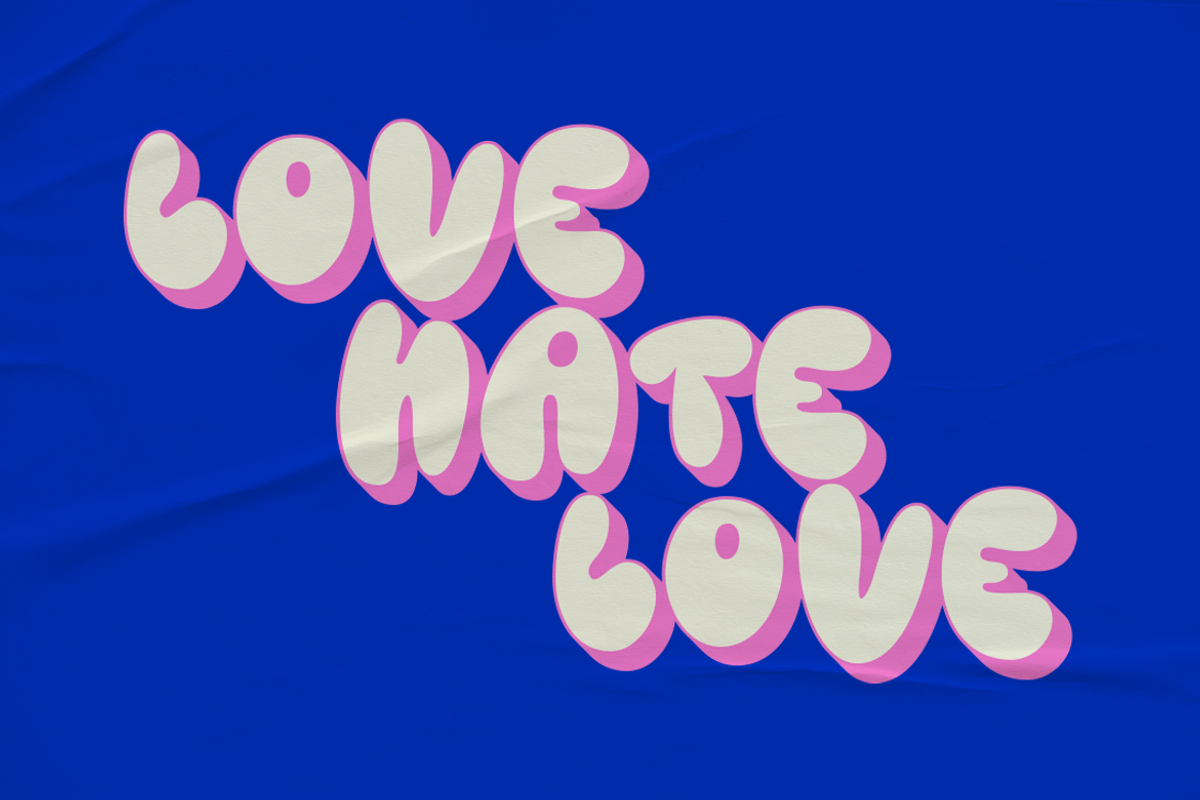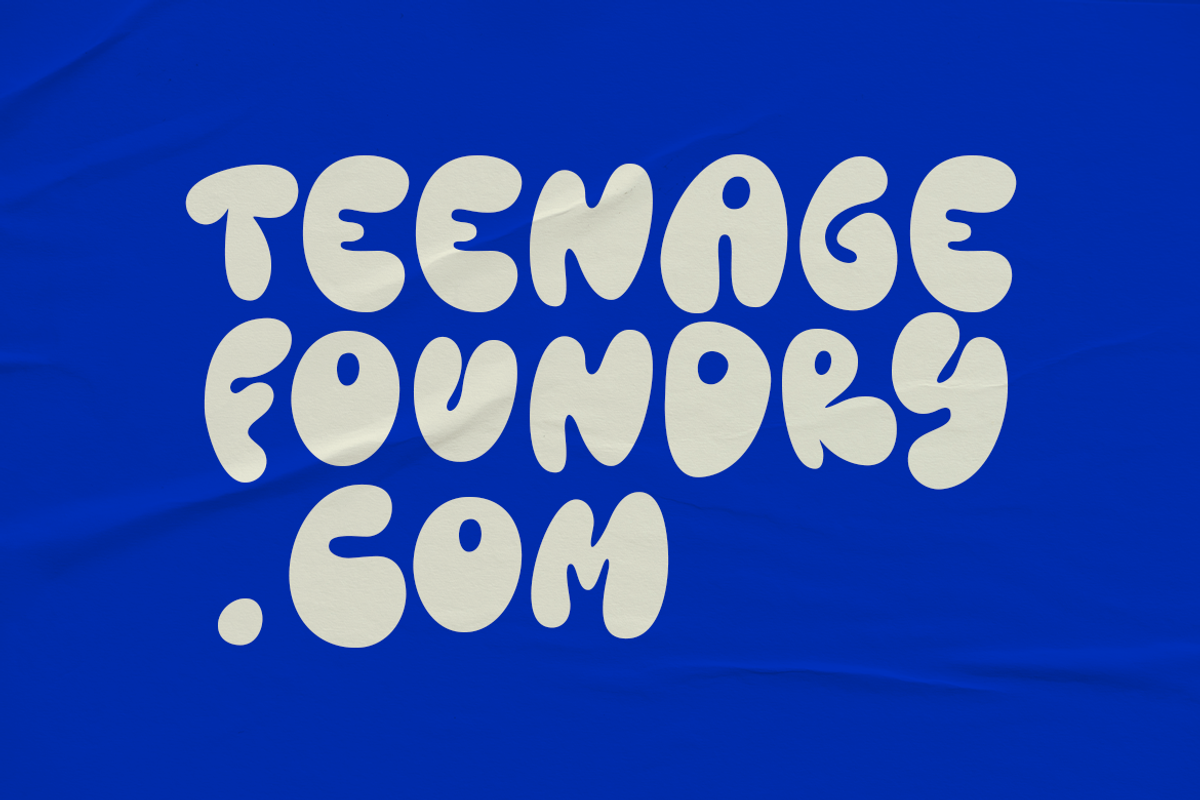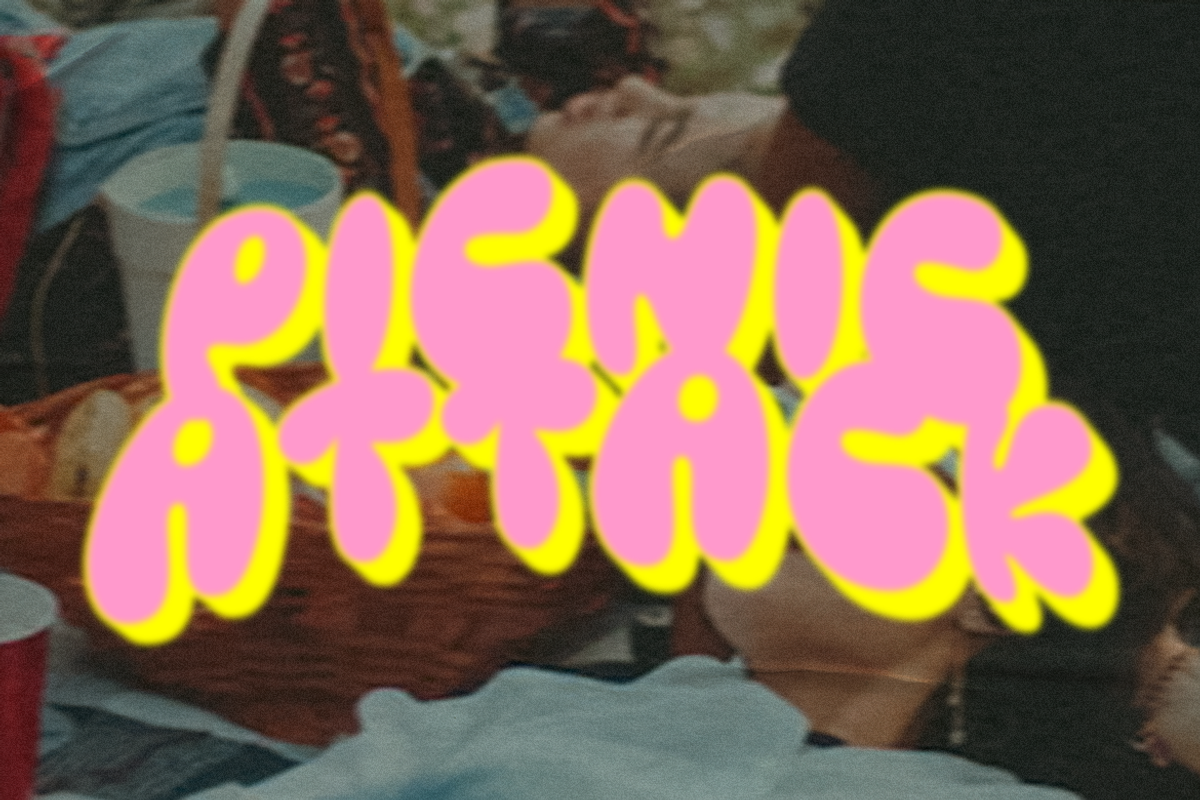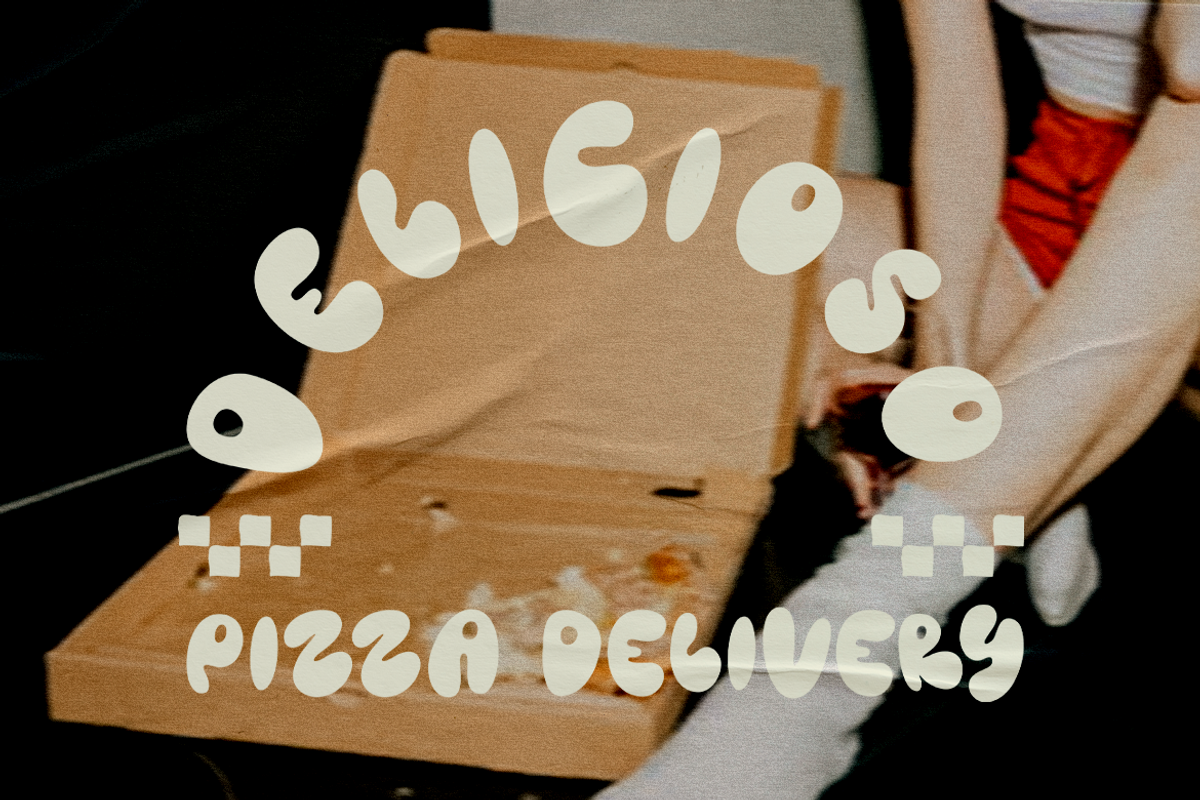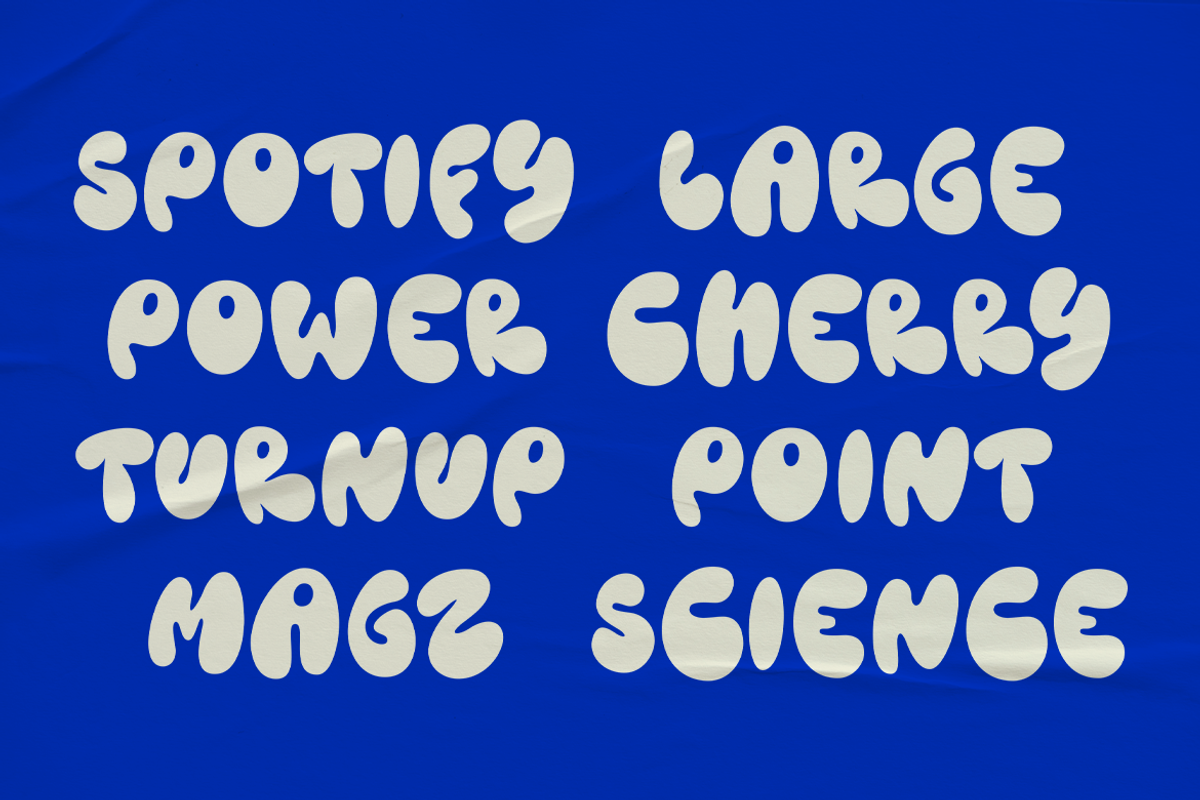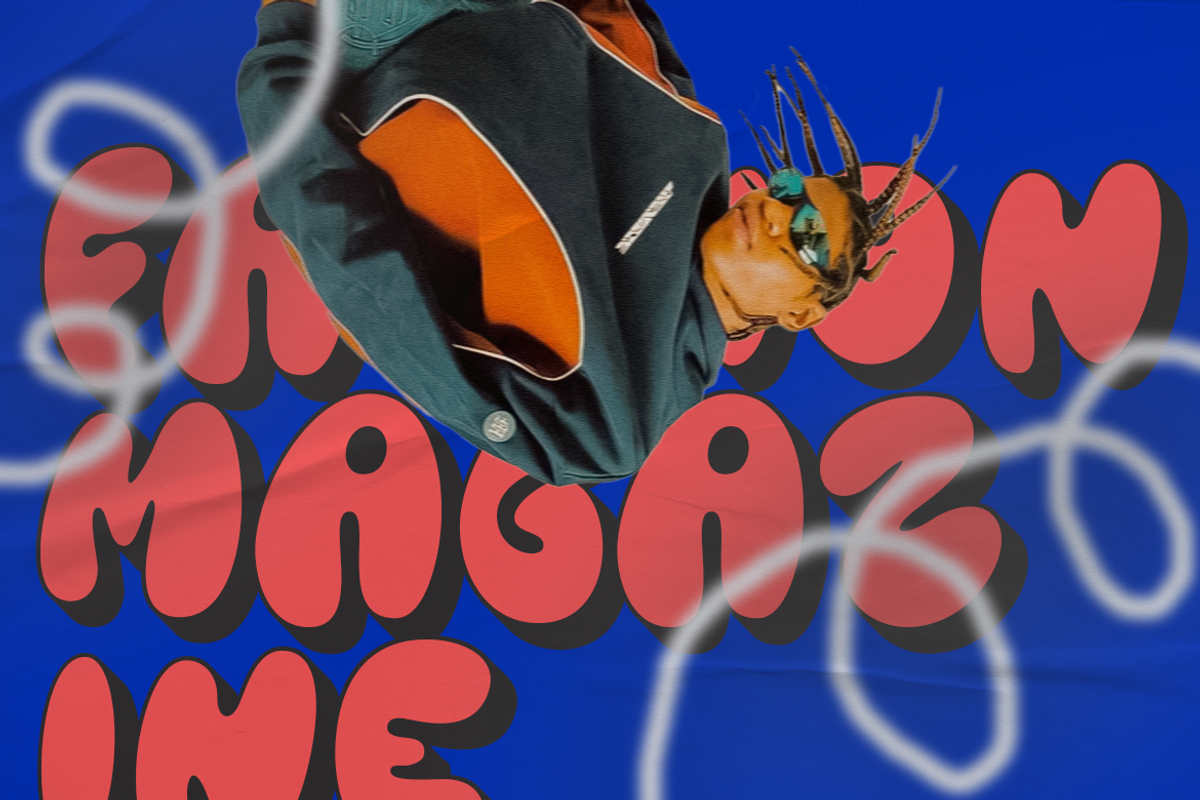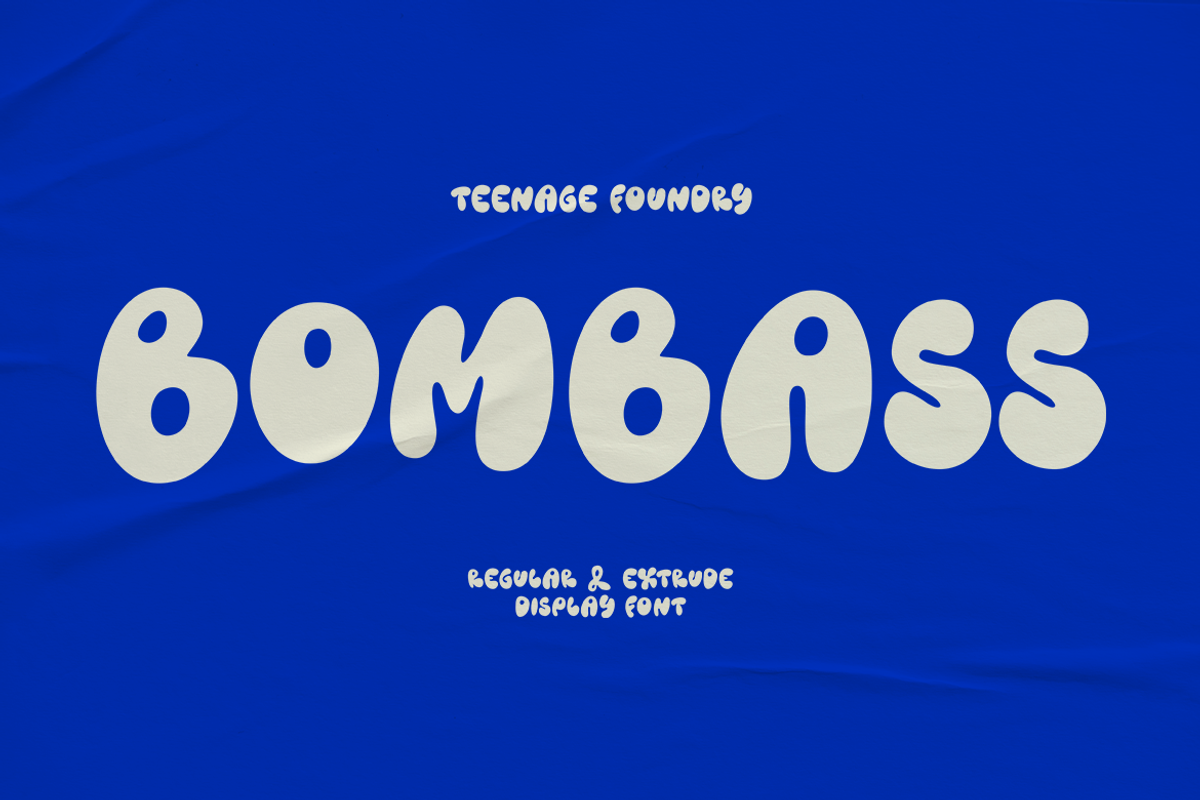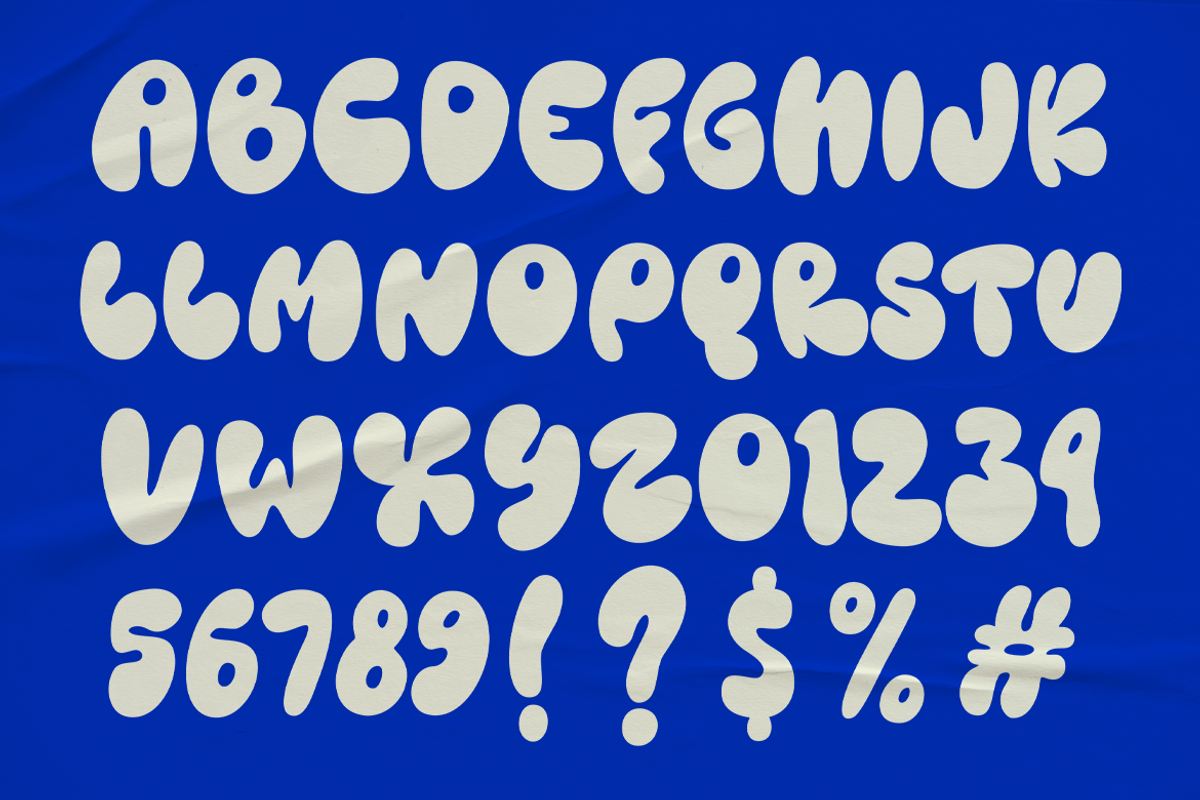
TF Bombass
TF Bombass – Groovy Display Font By Teenage Foundry
Introducing our latest font creation – a groovy typeface that’s sure to transport you back to the funky, psychedelic era of the 60s and 70s! With its bold, playful style and unique character, this font is perfect for adding a retro feel to your design projects.
This font is incredibly versatile and can be used for a range of design projects, including posters, album covers, branding, and more. Its groovy style gives it a unique character that’s sure to make an impact.